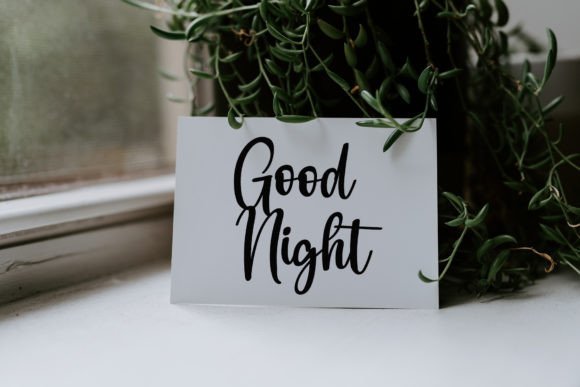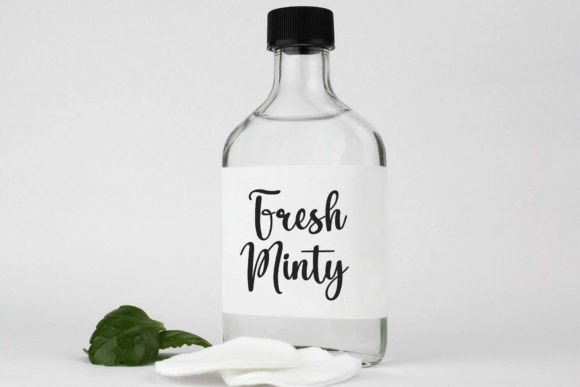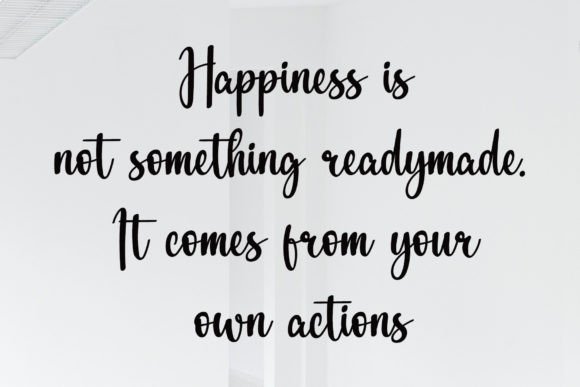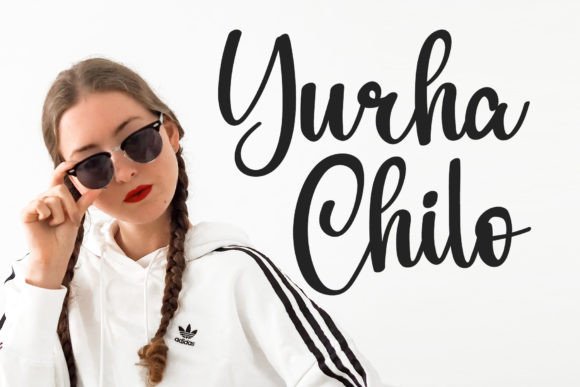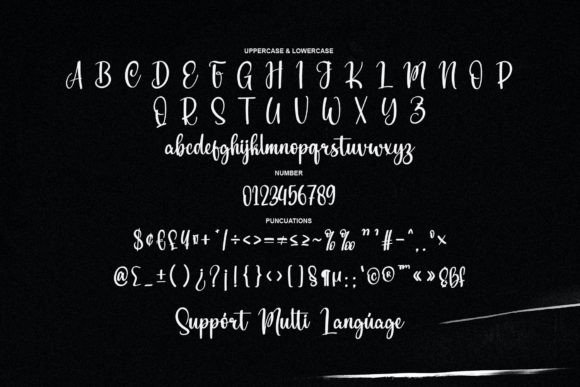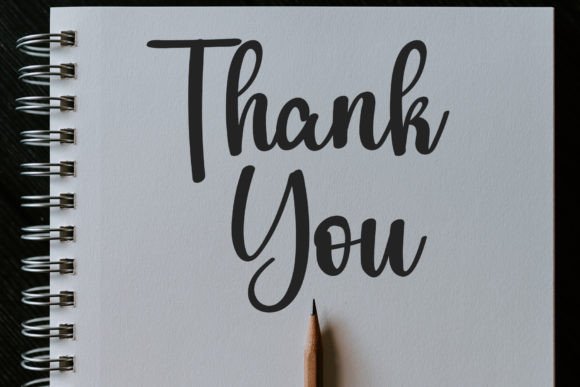
Introducing Benefit Font: Elevate Your Designs with Elegance and Timeless Style
Are you on the hunt for a font that adds a touch of sophistication and whimsy to your projects? Look no further than the Benefit Font, a delicate, elegant, and flowing handwritten font that is sure to capture your heart. With its incredibly distinct and timeless style, Benefit Font is the perfect addition to your design arsenal, allowing you to create spectacular designs that stand out from the crowd.
What Makes Benefit Font So Special?
Benefit Font boasts a unique, handcrafted aesthetic that is both elegant and approachable. Its flowing lines and delicate curves give it a timeless quality that works beautifully across a variety of design applications, from branding and packaging to stationery and digital media. Whether you’re a seasoned designer or a crafting enthusiast, Benefit Font is sure to inspire your creativity and help you bring your vision to life.
One of the standout features of Benefit Font is its PUA (Private Use Area) encoding. This means that you can easily access all of the font’s glyphs and swashes, giving you a wide range of creative options at your fingertips. With PUA encoding, you can effortlessly swap out characters and embellishments to add a personal touch to your designs. This level of flexibility makes Benefit Font an excellent choice for designers and crafters who value versatility and convenience.
Benefit Font’s versatility is one of its greatest strengths. Its elegant, flowing script is suitable for a wide range of design applications, including:
• Branding and Logo Design: Create a lasting impression with a custom logo that showcases your brand’s personality and style.
• Stationery and Invitations: Add a touch of whimsy and sophistication to your stationery, invitations, and greeting cards.
• Digital Media: Use Benefit Font to create eye-catching social media graphics, blog headers, and website content.
• Crafting and Scrapbooking: Add a personal touch to your scrapbooking and crafting projects with Benefit Font’s delicate, handcrafted aesthetic.
Why Choose Benefit Font?
With so many fonts on the market, why choose Benefit Font? Here are just a few reasons why designers and crafters love this beautiful, handwritten font:
• Unique and Timeless Style: Benefit Font’s elegant, flowing script is sure to stand the test of time.
• Easily Accessible Glyphs and Swashes: PUA encoding makes it easy to access and swap out characters and embellishments.
• Versatile and Flexible: Benefit Font is suitable for a wide range of design applications and can be used for both personal and commercial projects.
• High-Quality Design: Benefit Font is designed with care and attention to detail, ensuring a high-quality finish in every project.
Get Ready to Fall in Love with Benefit Font
If you’re looking for a font that will elevate your designs and add a touch of elegance and whimsy, look no further than Benefit Font. With its unique, timeless style and easily accessible glyphs and swashes, Benefit Font is the perfect choice for designers and crafters who value versatility, flexibility, and high-quality design. So why wait? Fall in love with Benefit Font today and start creating spectacular designs that showcase your creativity and style!
In conclusion, Benefit Font is a delicate, elegant, and flowing handwritten font that is perfect for designers and crafters who want to add a touch of sophistication and whimsy to their projects. With its PUA encoding, versatile design, and high-quality finish, Benefit Font is an excellent choice for a wide range of design applications. So go ahead, give Benefit Font a try, and discover the difference it can make in your designs!